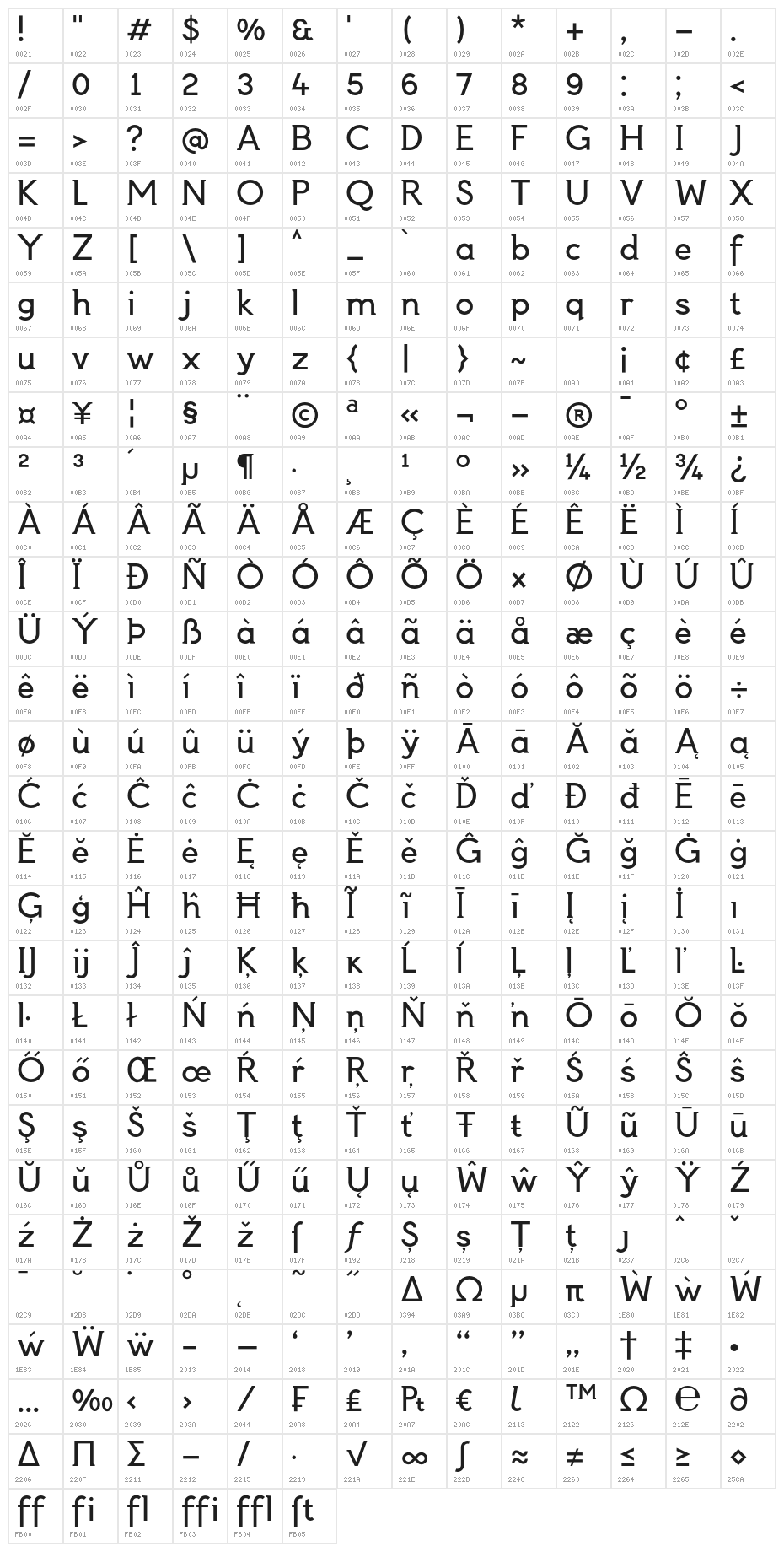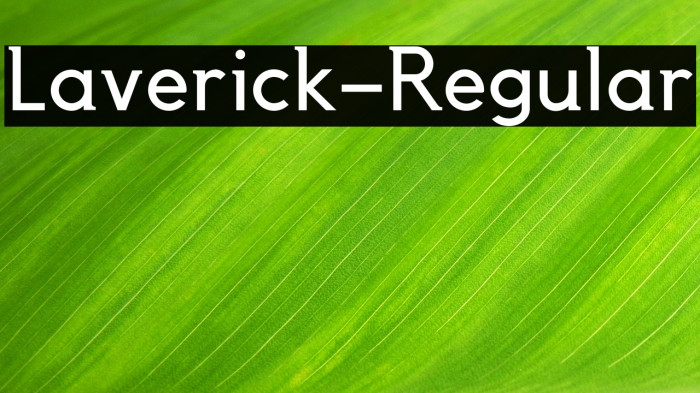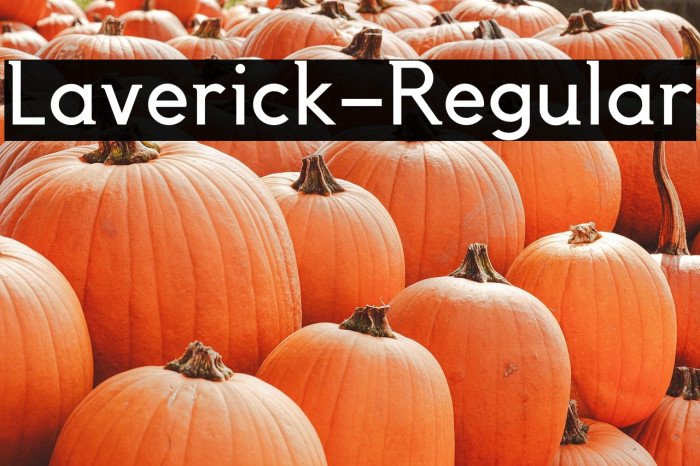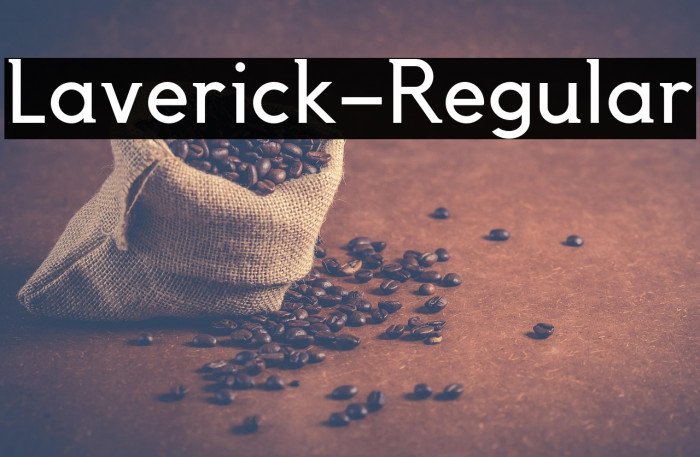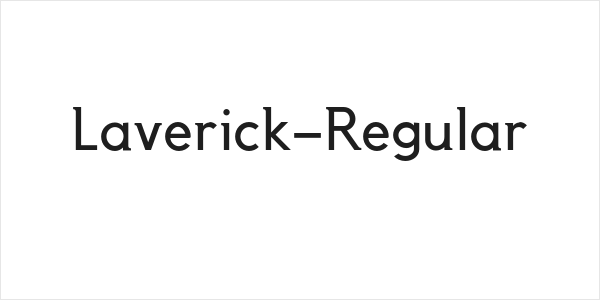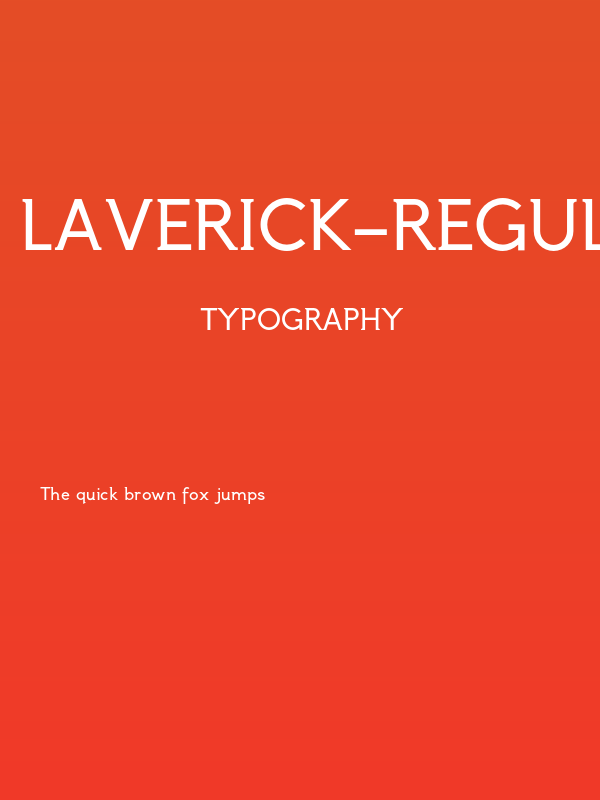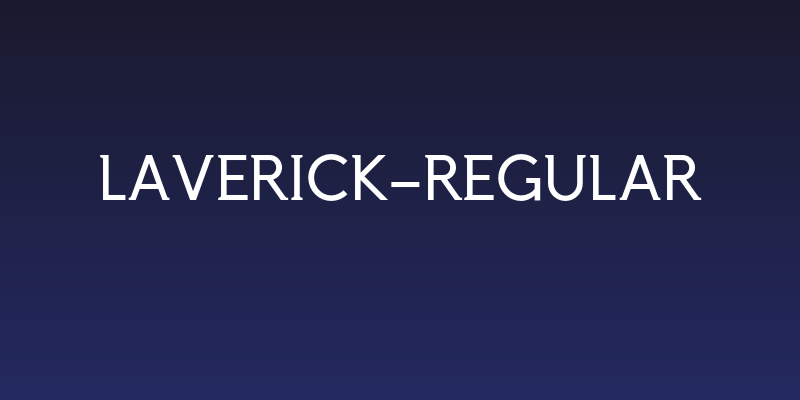
Laverick-Regular Font
Laverick-Regular Description
This typeface features a clean and modern design with a geometric structure. The uppercase letters are bold and assertive, while the lowercase letters maintain a consistent and harmonious flow. The numerals are clear and easily readable, making them suitable for various applications. The special characters are well-integrated, adding versatility to the font. Its overall appearance is sleek and professional, making it ideal for contemporary design projects.